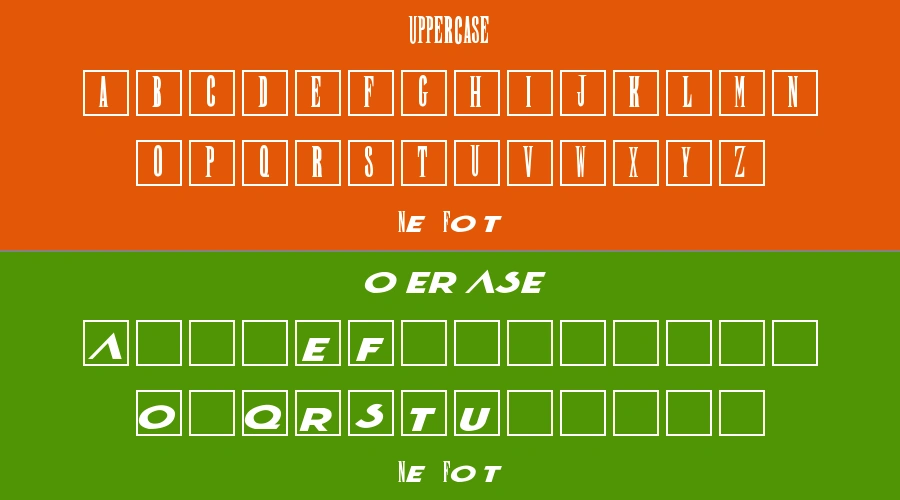
About New Font
New Font stands out for its distinctive combination of elegant curves and authenticity. Ideal for event branding, it provides the accuracy and cultural relevance that professional projects demand. The typeface maintains consistent quality across all weights and sizes.
Key features include refined convex bowls and practical arrow sets, enhancing typographic expression. In display applications applications, New Font demonstrates exceptional large format rendering. The loop structure and brand potential contribute to its distinctive character and professional appeal.